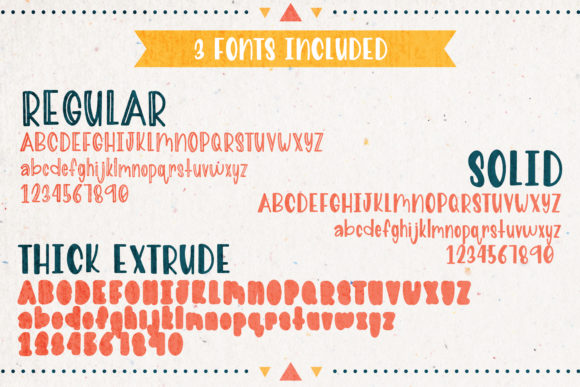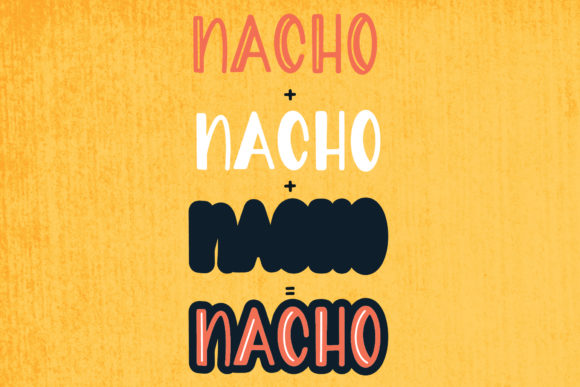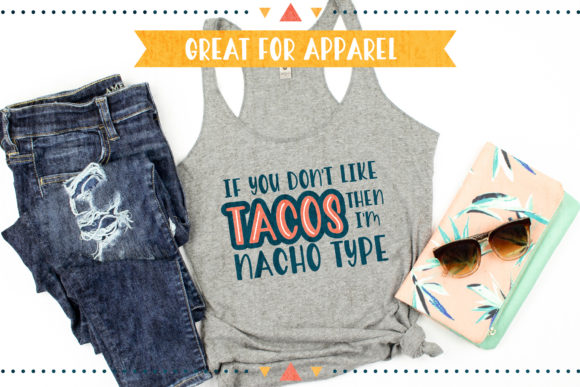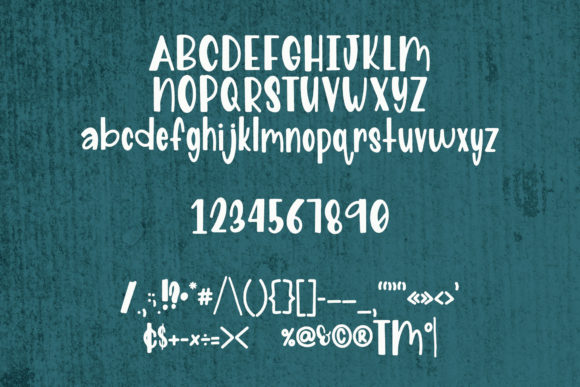
Introduction to Nacho Type Font
As a designer, you know the thrill of finally finding the perfect font to bring your creative project to life. The moment when everything falls into place, and your design takes on a new level of sophistication and charm. It’s a feeling that’s hard to describe, but it’s what keeps us coming back for more.
Recently, I stumbled upon the Nacho Type Font, and I just had to share it with all of you. This hand-lettered feminine layered sans serif font family is a game-changer for any design project. With its high quality and transparent background, it’s perfect for creating stunning visuals for print on demand products, DIY projects, and even cutting machine designs.
Key Features of Nacho Type Font
- High-quality, unique design for creative projects: Nacho Type Font is perfect for adding a fun and quirky touch to your designs.
- Perfect for design resources: This font is ideal for designers, artists, and creatives who need a high-quality, unique font for their projects.
Honest Review: Nacho Type Font
I recently stumbled upon the Nacho Type Font, and I must say it’s a solid addition to any design resource collection. This high-quality font is perfect for creative projects that require a fun and playful touch. The transparent background is a bonus, making it easy to integrate into any design.
- Unique and quirky design that sets it apart from more common fonts.
- High-quality design that looks great at various sizes.
- Transparent background makes it easy to use in various design scenarios.
- May not be suitable for professional or corporate designs due to its playful nature.
- Some characters may not be included, which can be a drawback for more complex projects.
- May not be as versatile as other fonts in terms of styling options.
Overall, I think the Nacho Type Font is a great addition to any design collection. Its unique design and high-quality rendering make it perfect for creative projects, and the free download is a bonus. Just be aware of its limitations and use it accordingly.
Nacho Type Font
Introduction to Nacho Type Font
The Nacho Type Font is a high-quality, free download font perfect for any creative project. Its unique design and transparent background make it an excellent design resource for designers and artists.
Tips for Getting the Most Out of Nacho Type Font
Here are some tips for getting the most out of Nacho Type Font:
- Experiment with different font sizes and styles to find the perfect look for your project.